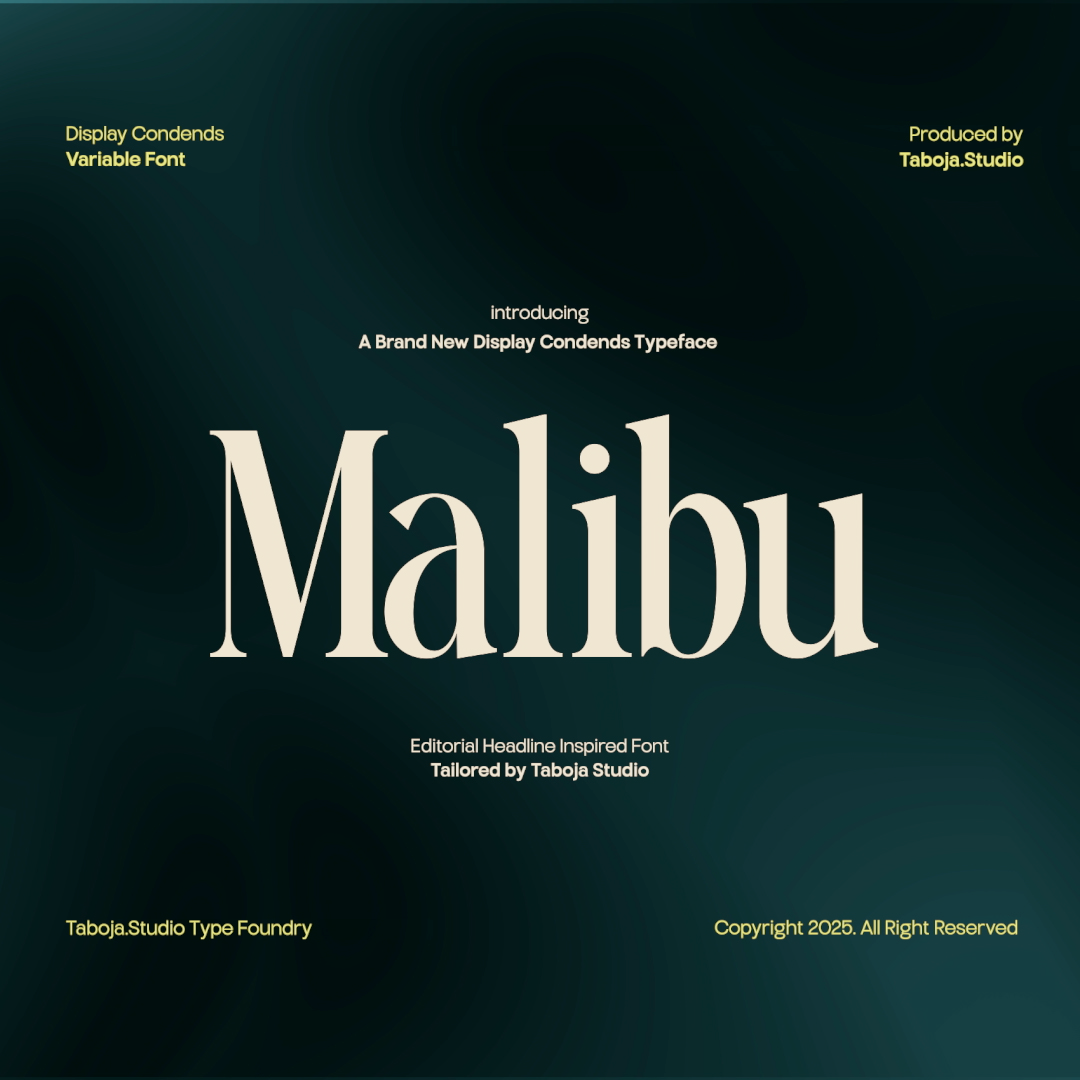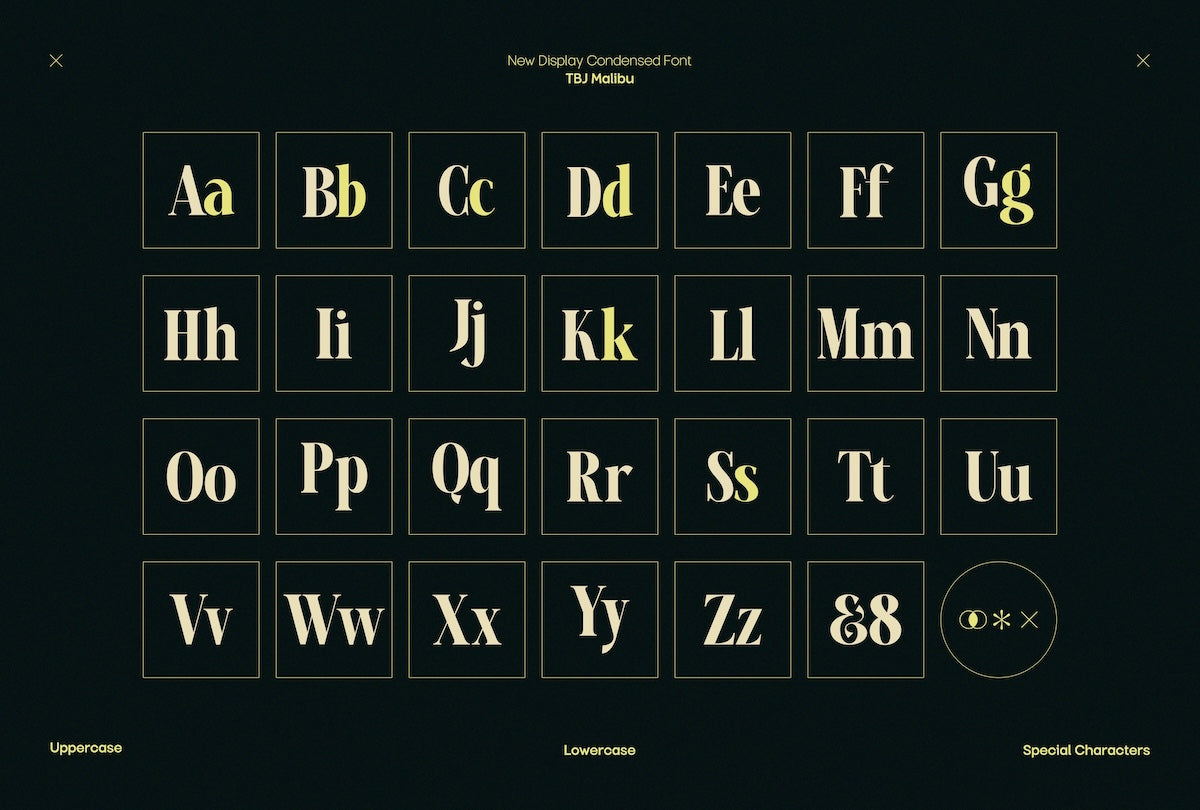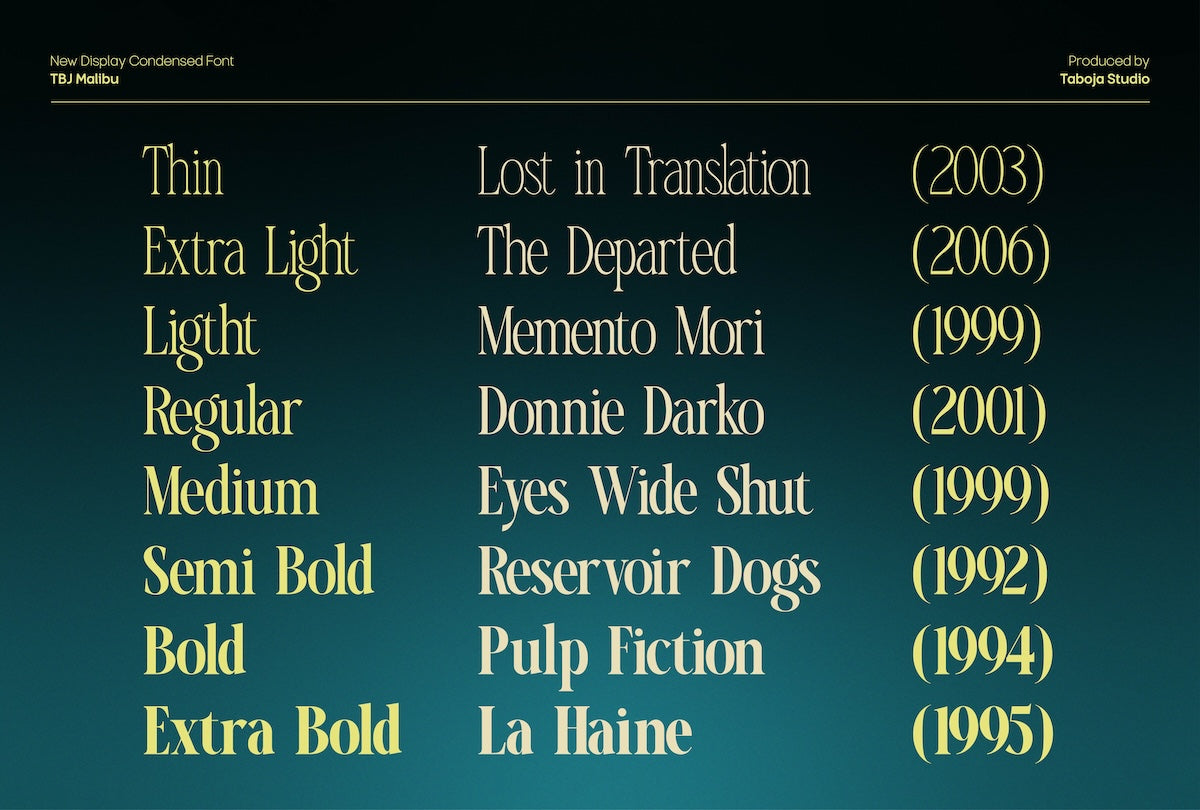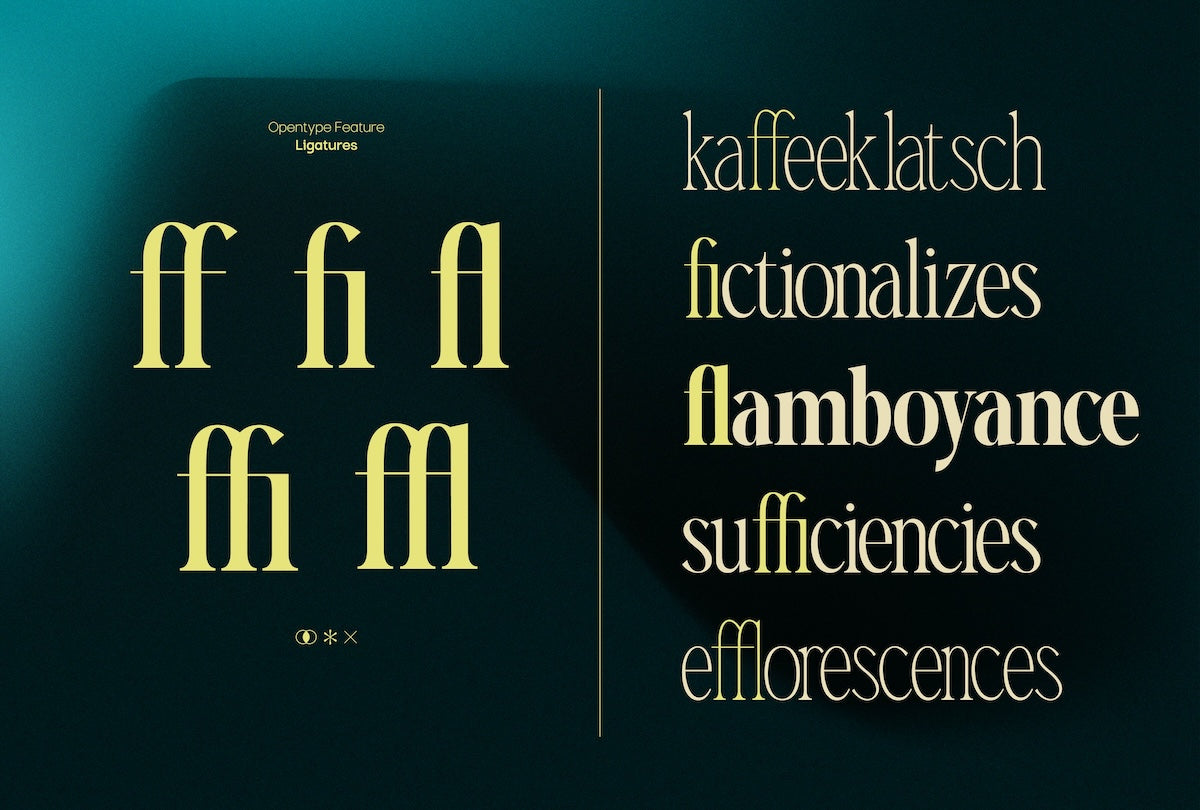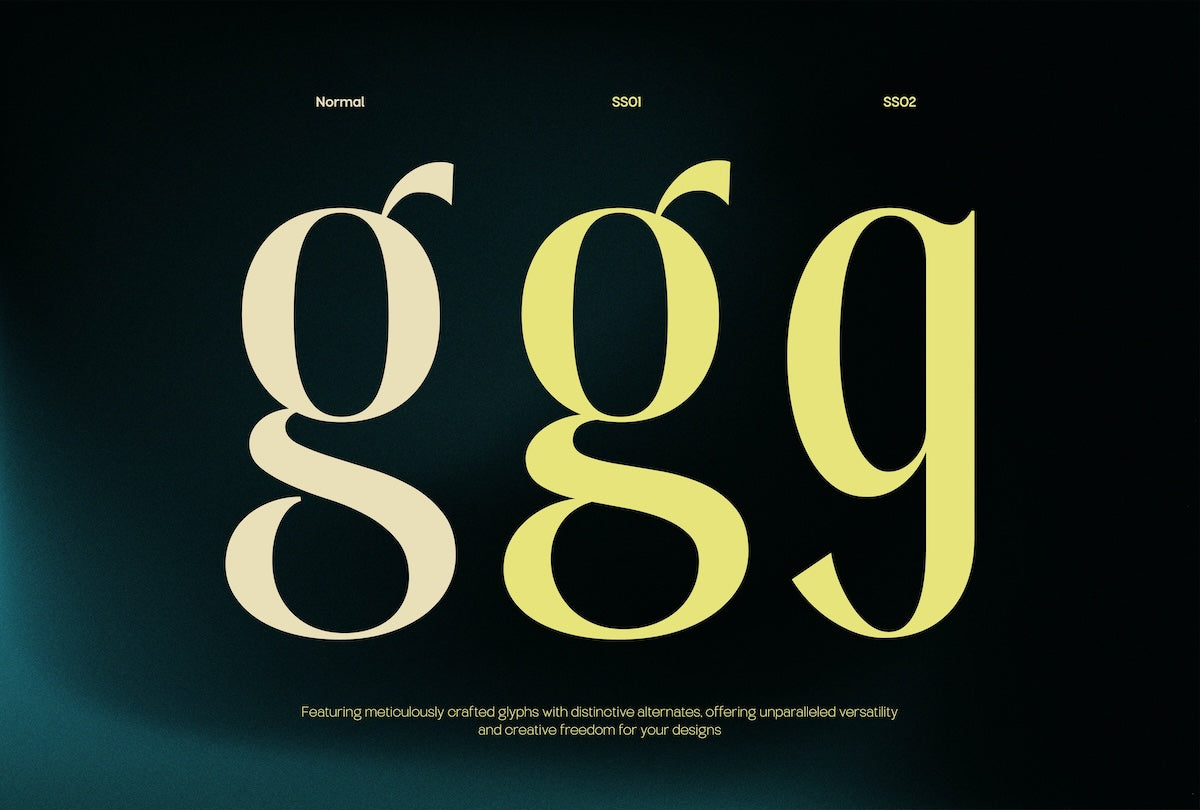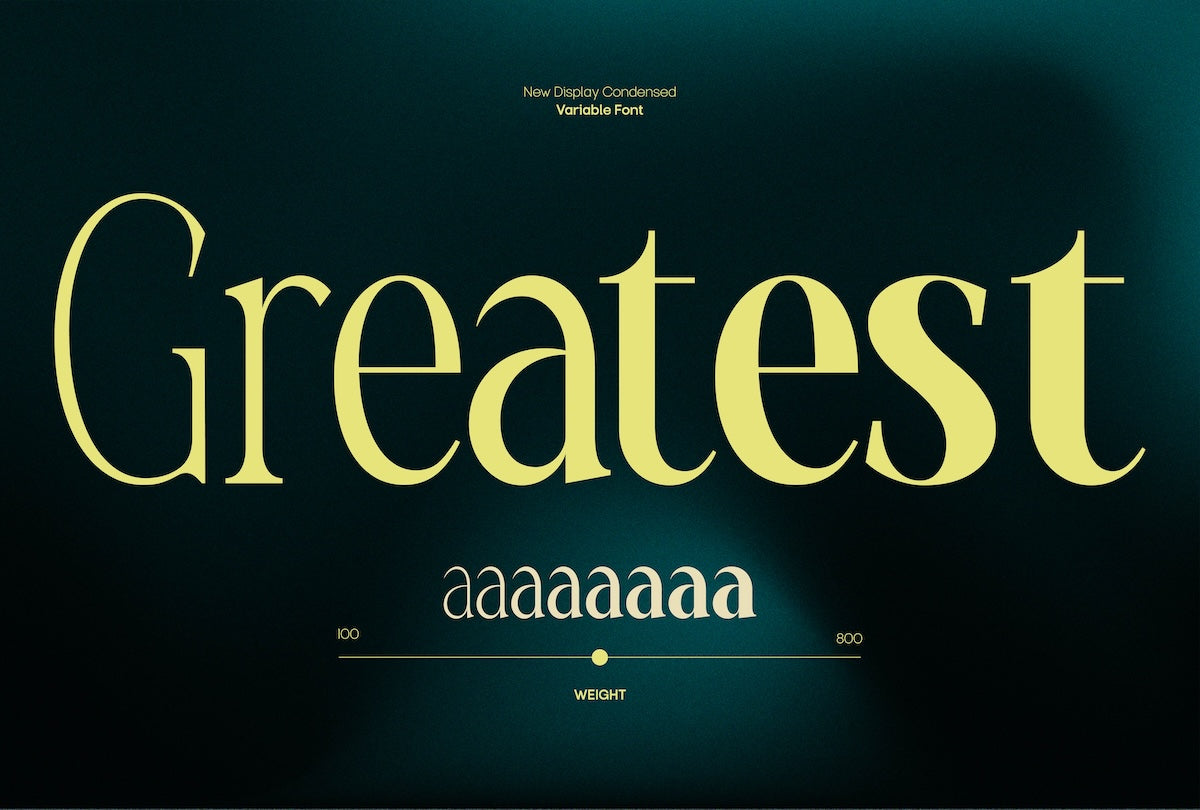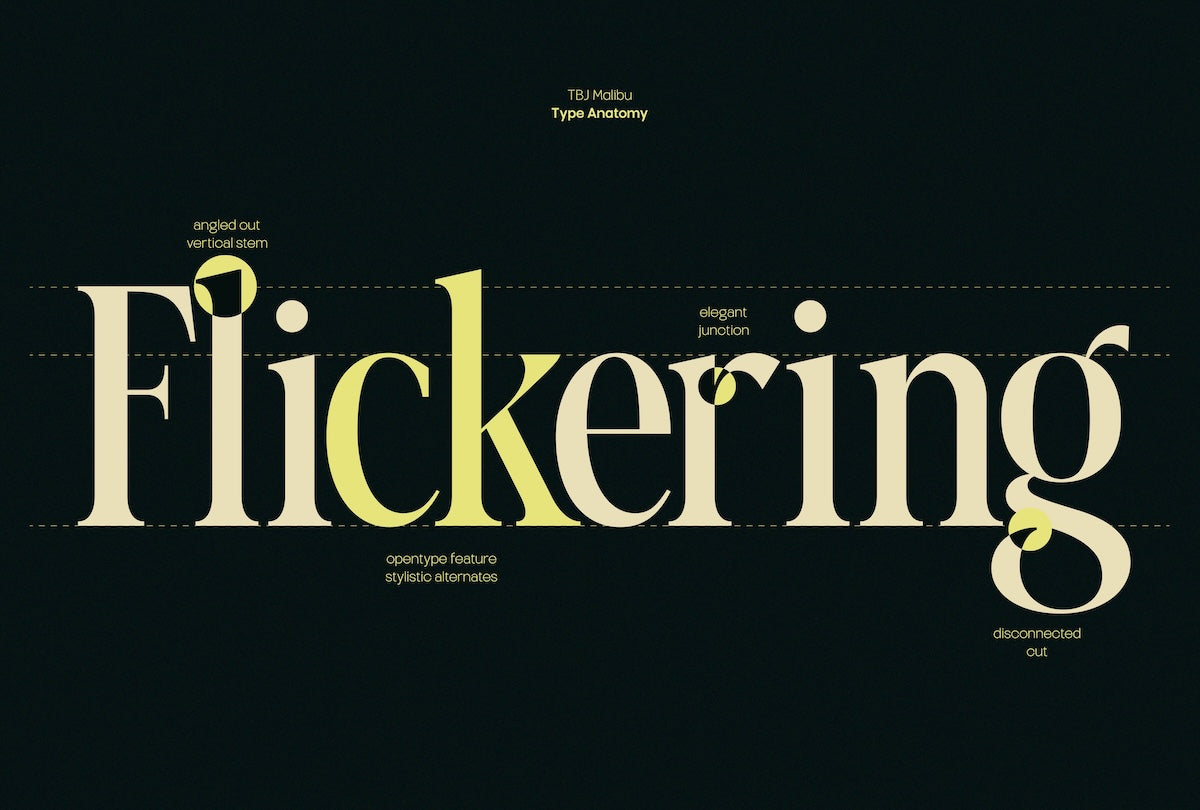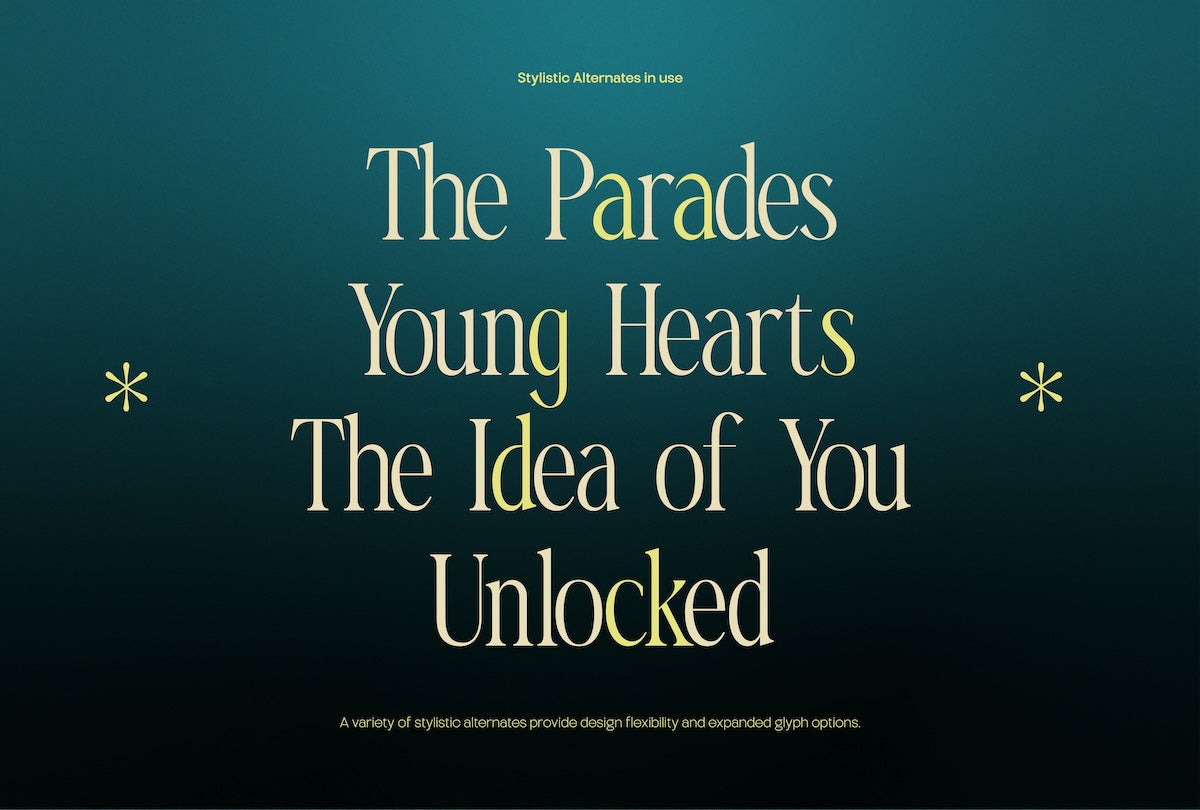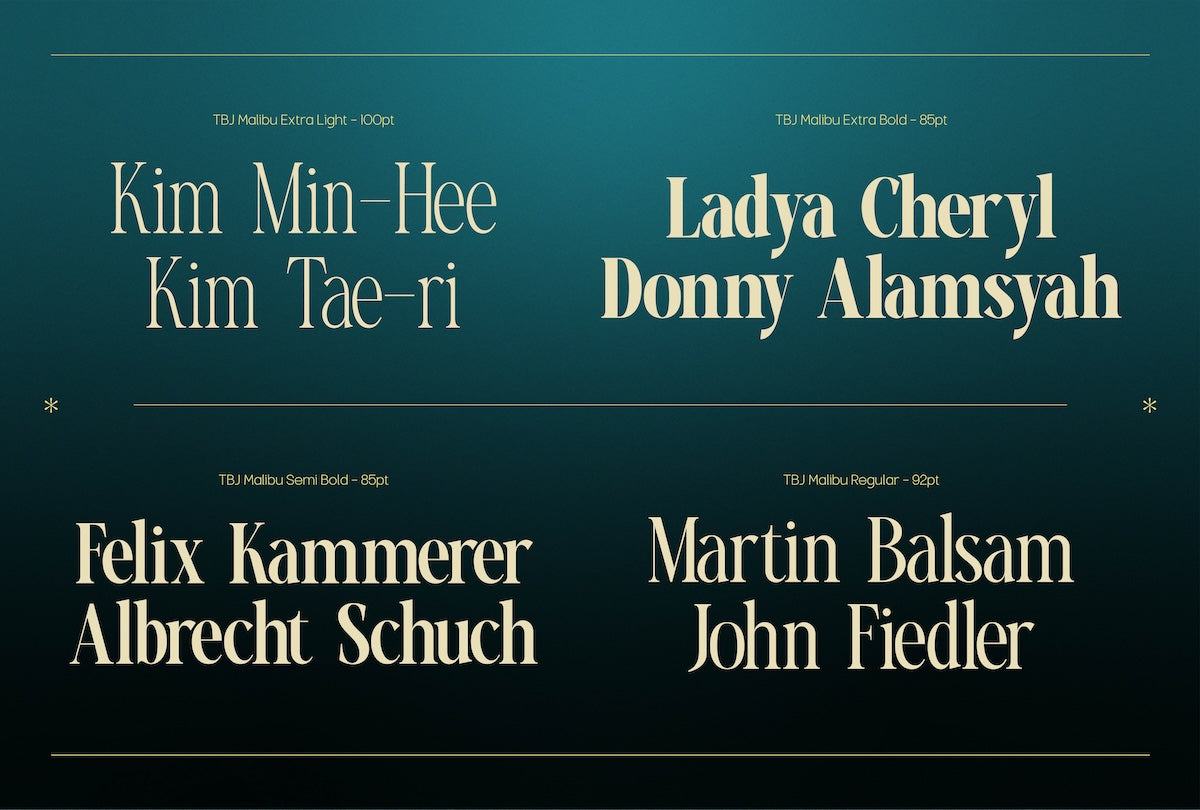
TBJ Malibu Condensed Display Font
Taboja Studio
TBJ Malibu is a stunning display font with Condensed style and Variable Font capability, produced by Taboja.studio to set a new standard in the world of display typography. This font not only offers an elegant look with slim and tall proportions, but also provides tremendous flexibility with its 8 variable font variants.
Each variant allows for width and weight adjustments, allowing designers to create compositions that truly fit their needs-from lighter, subtle typography, to more dramatic bold versions. The elegant green-blue graded background further strengthens the visual appeal of this font, showcasing its aesthetic potential that is perfect for branding, logos, editorials and other creative projects.
TBJ Malibu is not just a font, but a flexible and characterful visual expression tool, designed to give an exclusive and contemporary feel in a wide range of design applications.
TBJ Malibu is a condensed display font featuring variable font capability with 8 variants, including Thin, Extra Light, Light, Regular, Medium, Bold, and Extra Bold. It offers uppercase and lowercase letters, numerals, punctuation, accented characters, multilingual support, and is designed for use in programs that support OpenType features.